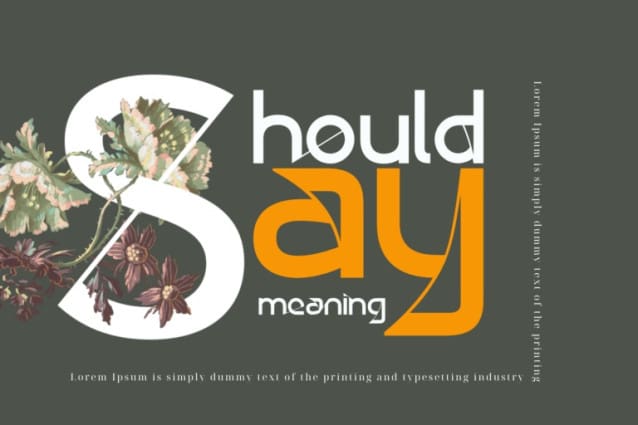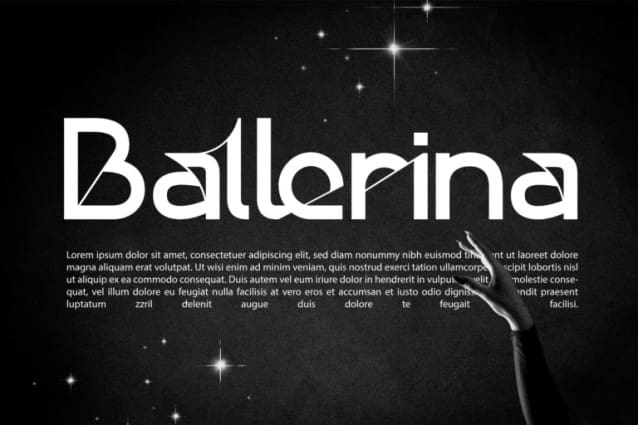
Exploring Possibility Font
Exploring Possibility Font is a sophisticated display font that seamlessly blends intricate flourish with Art Deco style, creating an elegant and luxurious impression. A sleek modern display font that effortlessly blends straight lines with subtle curves to create a unique and sophisticated look! Perfect for website headers, logos, corporate project, magazines, and modern-related branding. Its modern yet timeless design ensures your content stands out with a touch of class and sophistication.
Exploring Possibility was built with OpenType features and includes 100 ligatures, alternate, numbers, punctuation, and it also supports other languages.